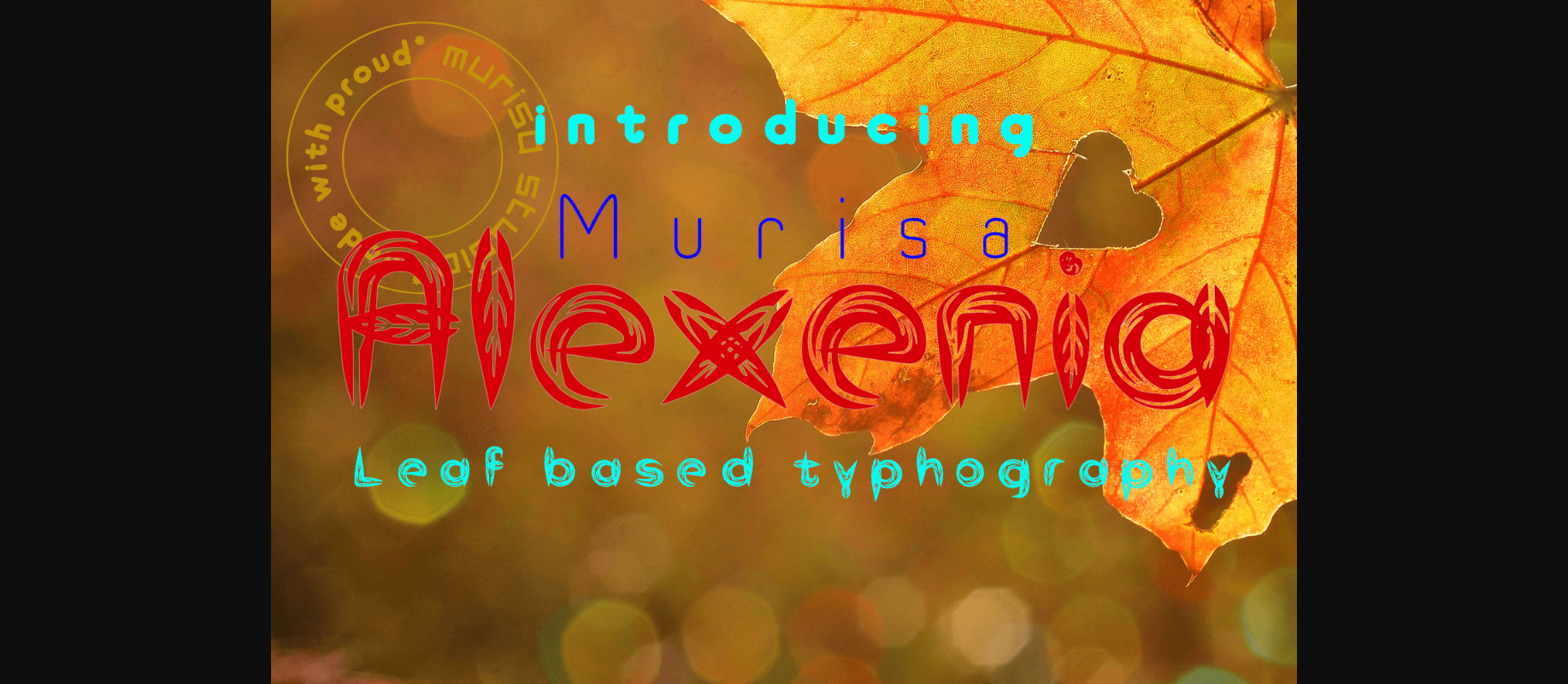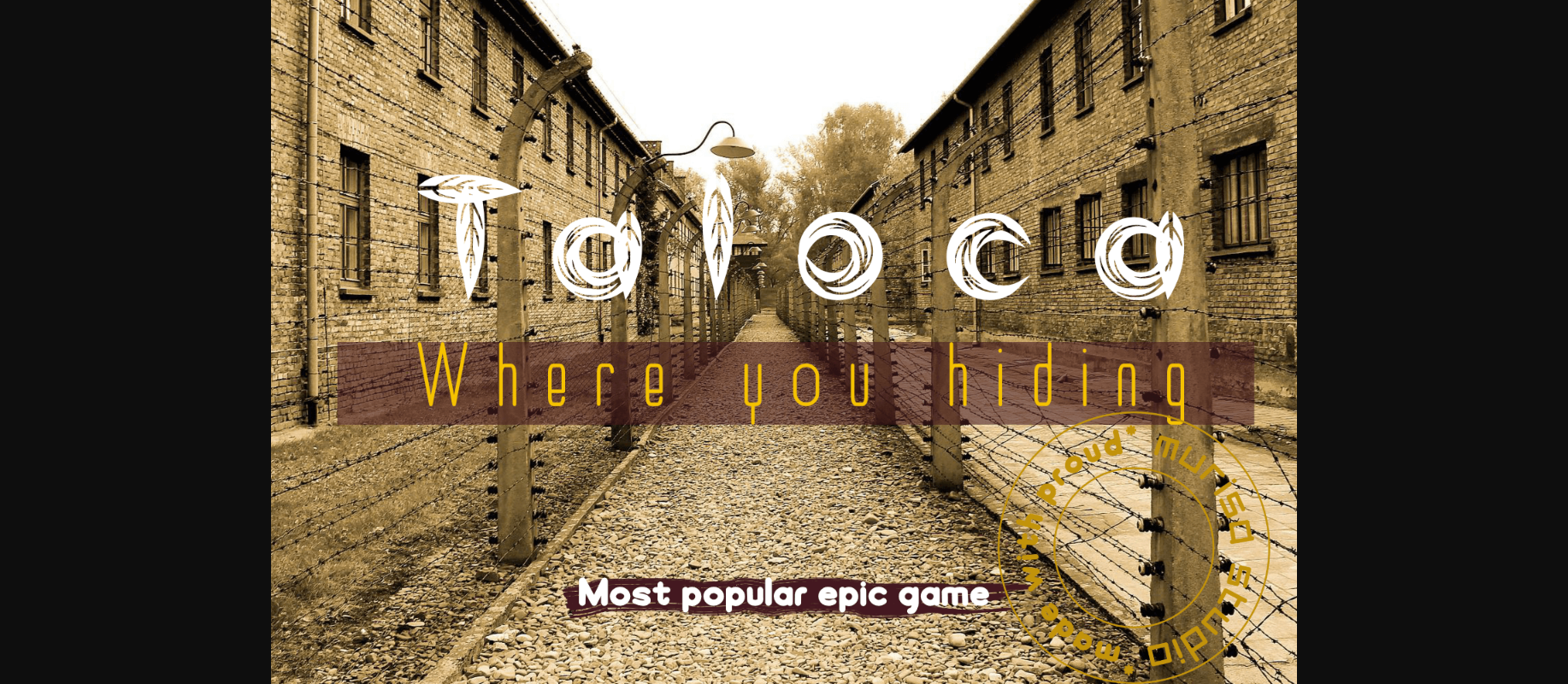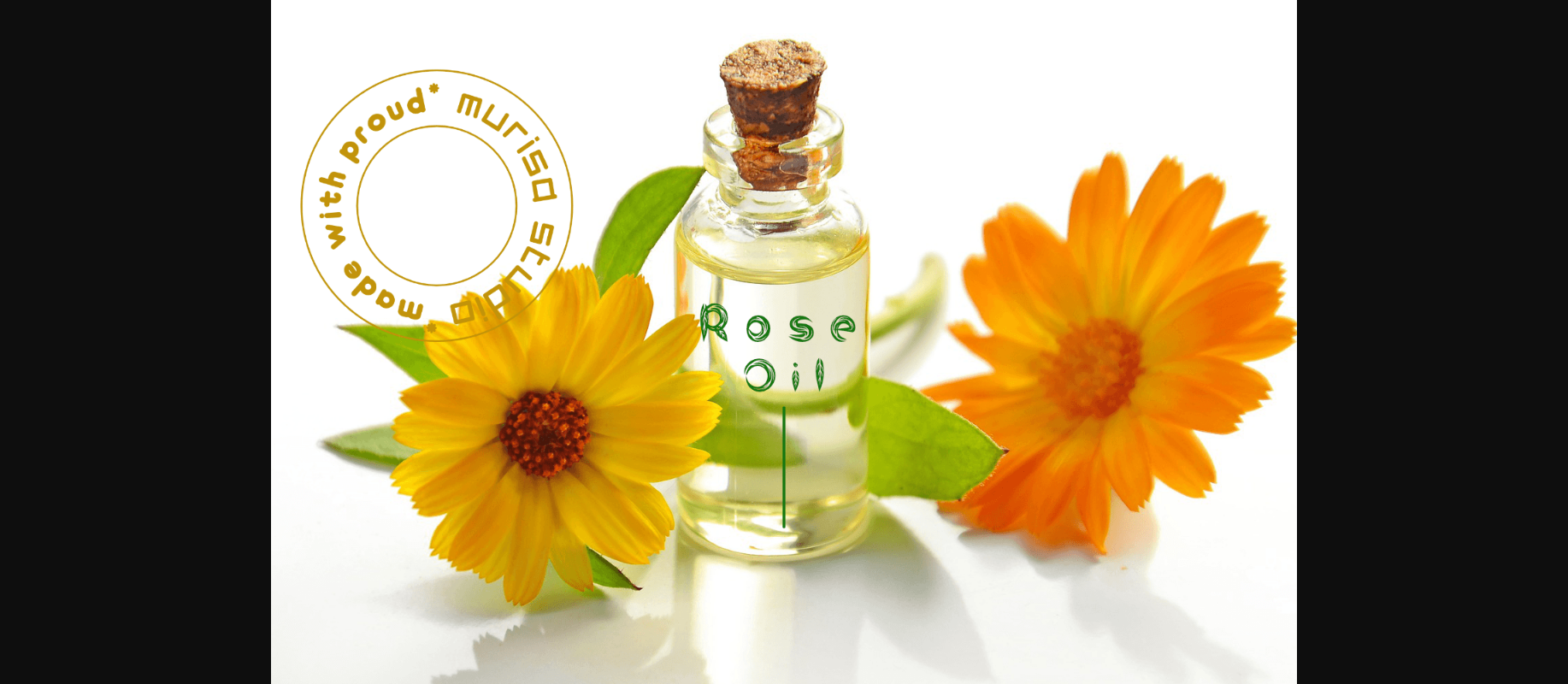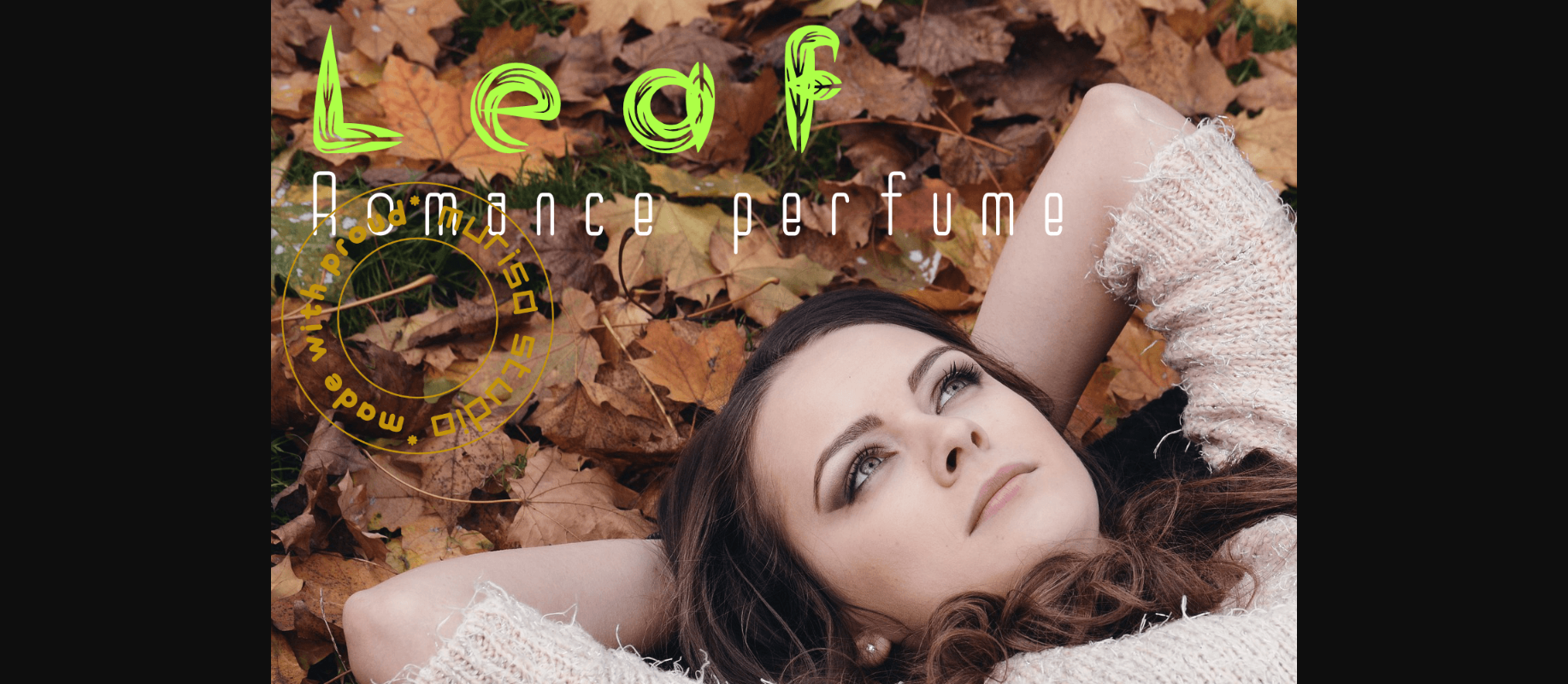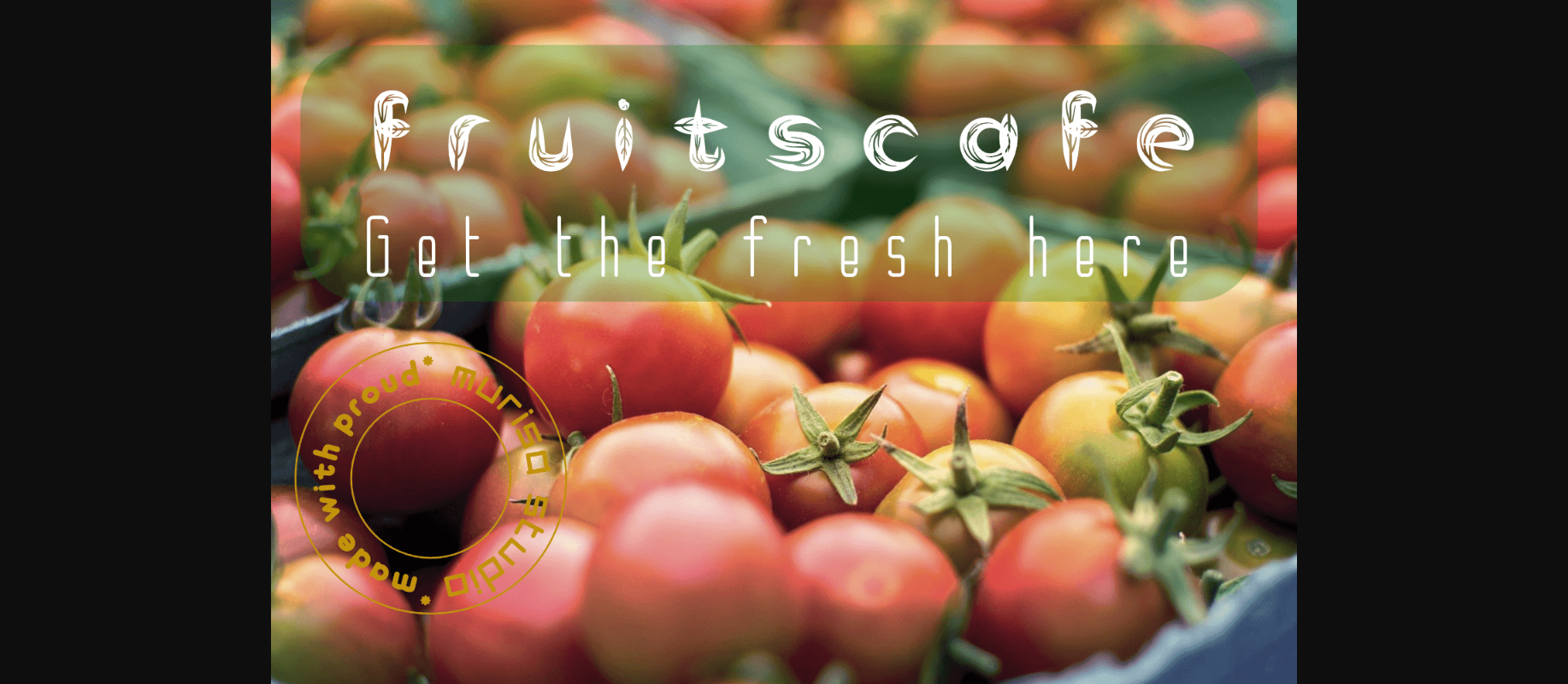
About Murisa Alexenia Font
Murisa Alexenia is a splendid decorative font inspired by fallen leaves scattered about. MurisaAlexenia is a natural font, with distinctive shapes and cavities that make it seem so exotic, stunning. Murisa Alexenia is suitable for flora and nature-themed designs. Use this font in your products, and you’ll have a resounding success!
Murisa Alexenia, a font, a product of nature.